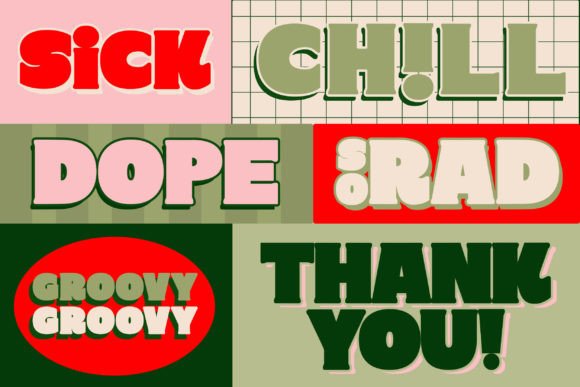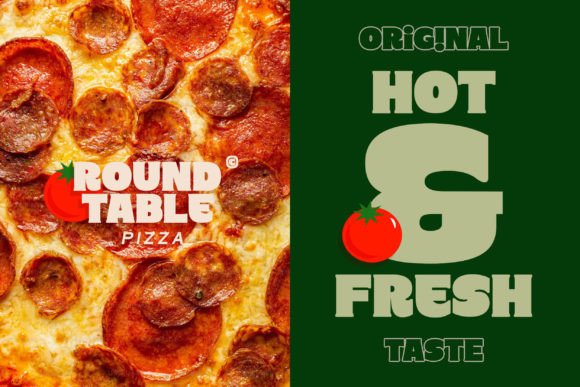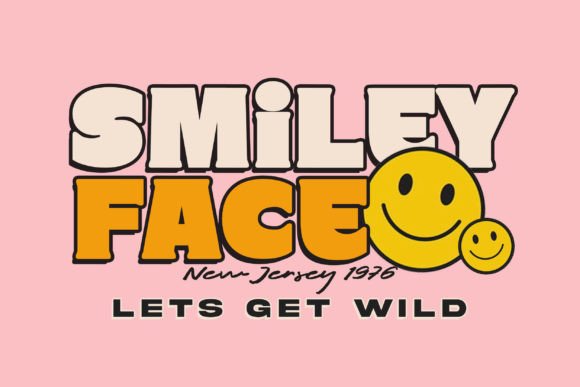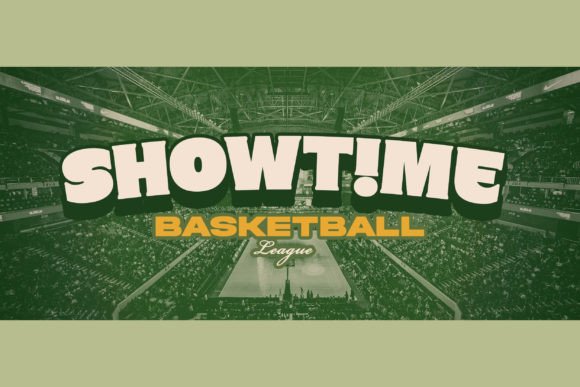
Social Circle Font
Social Circle is a unique and eye-catching font that combines boldness with a vintage groovy style. With its playful curves and retro-inspired design, it captures the essence of the 1960s and 1970s. Social Circle is perfect for adding a touch of fun and nostalgia to your designs, whether you’re creating posters, logos, or social media graphics. Its bold and expressive nature makes it stand out and adds a dynamic and energetic vibe to any project. Embrace the groovy spirit of the past with Social Circle font.